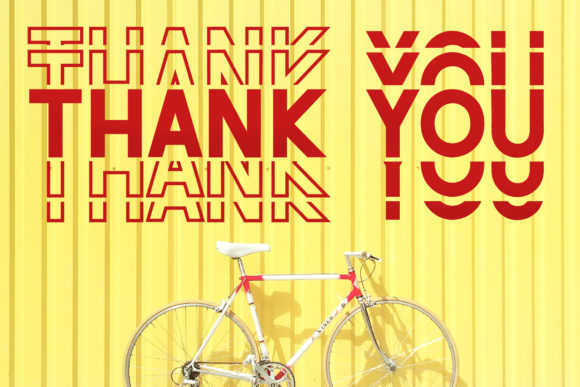
Brick Font
Brick is a cool and bold display font.
Brick is perfect for any projects, such as shirt designs, logos, crafting, sticker, sublimation, signs and many more.